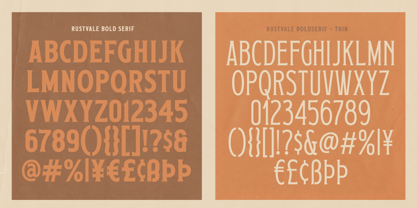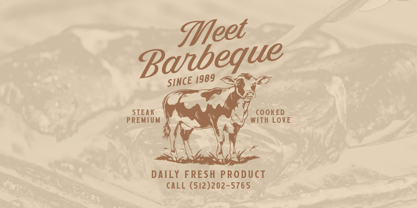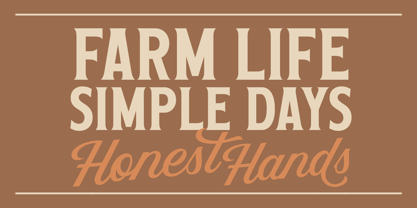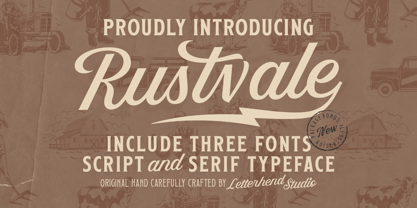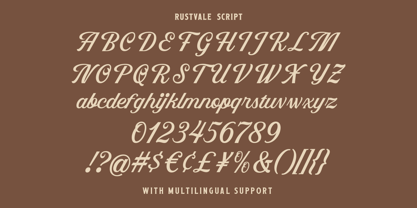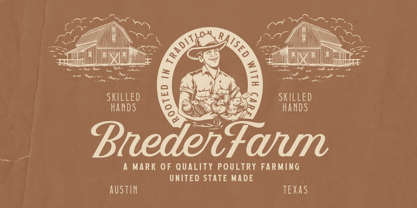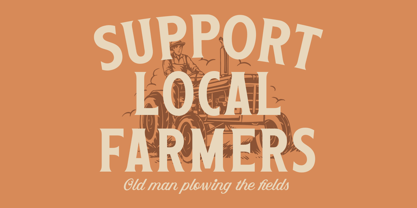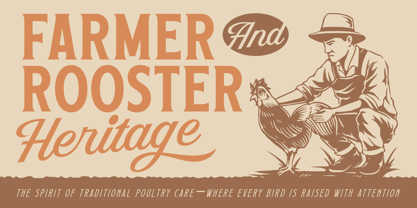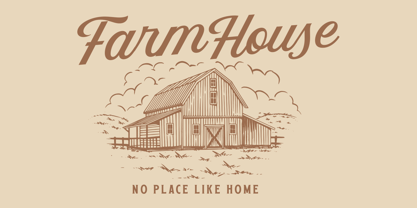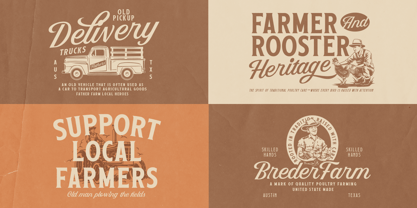
Rustvale
by Letterhend
Rustvale is a vintage-crafted typeface trio that blends elegant script curves with sturdy serif structure, creating a warm old-time charm inspired by classic farm signage and hand-lettered Americana. With its sweeping swash, textured retro tone, and timeless character, this font set brings a nostalgic, rustic spirit to branding, packaging, posters, menus, and heritage-themed projects. Features : - Uppercase & lowercase - Numbers and punctuation - Alternates & Ligatures - Multilingual Support - PUA encoded